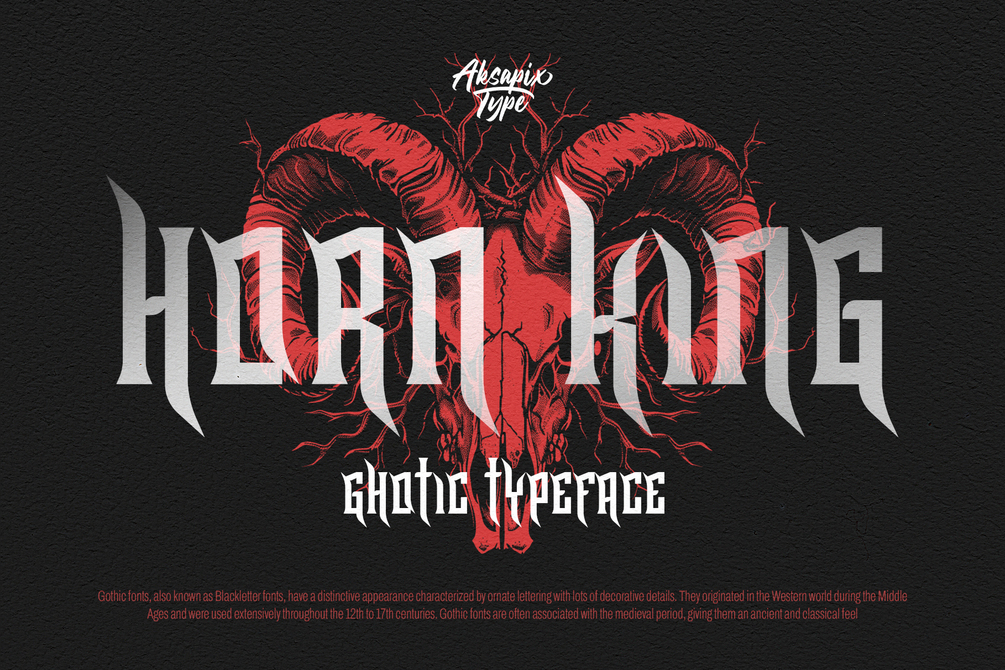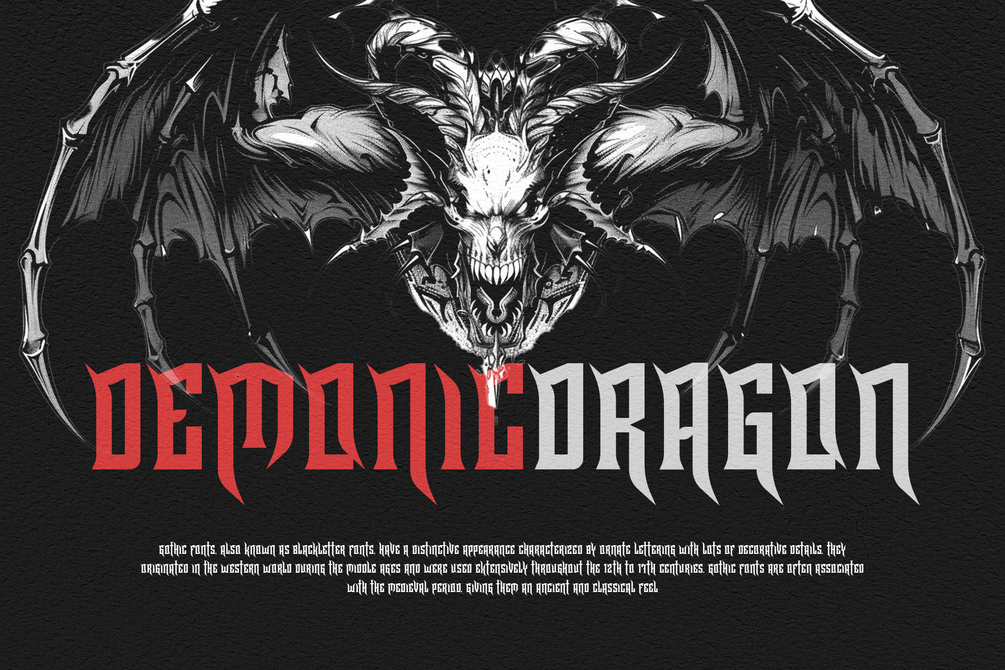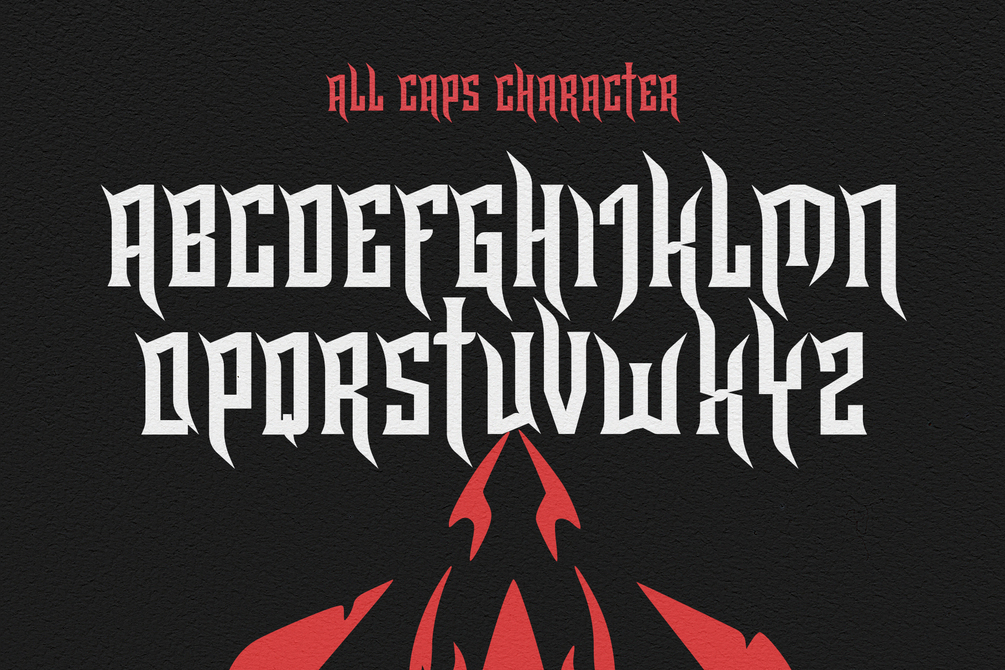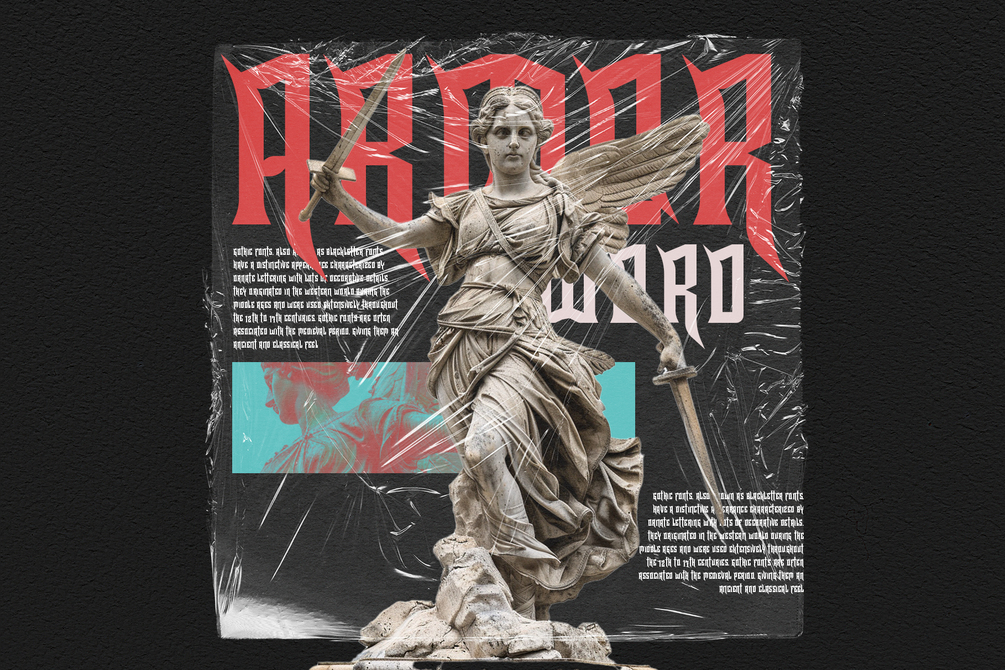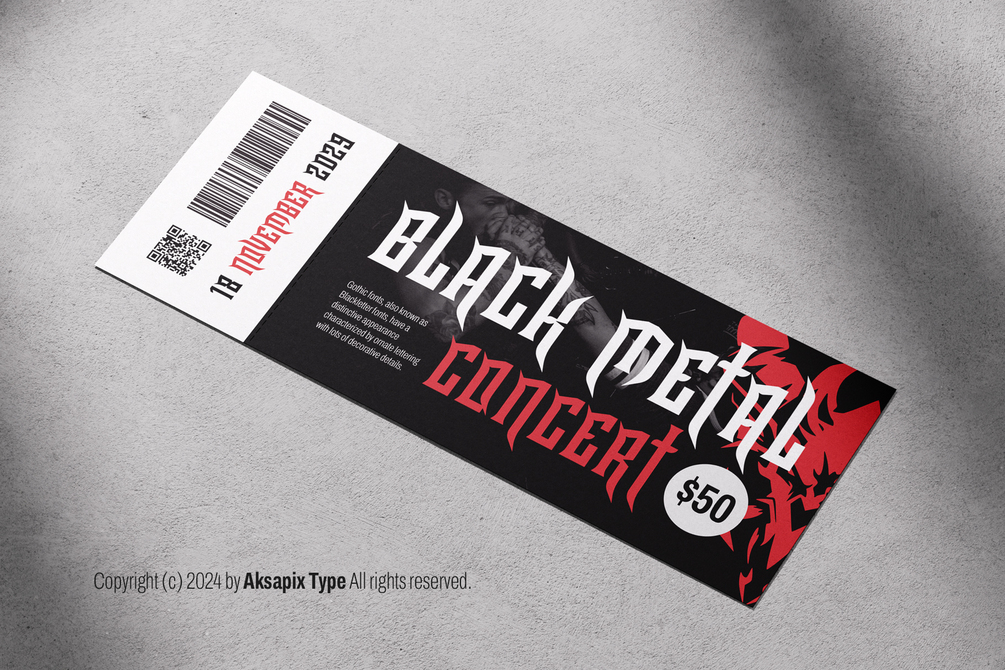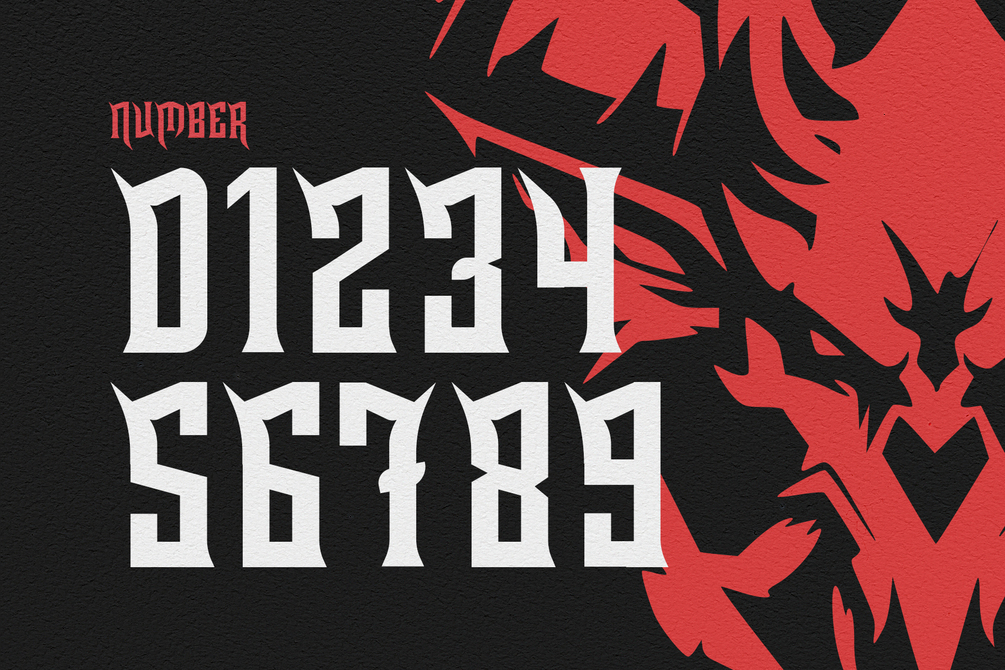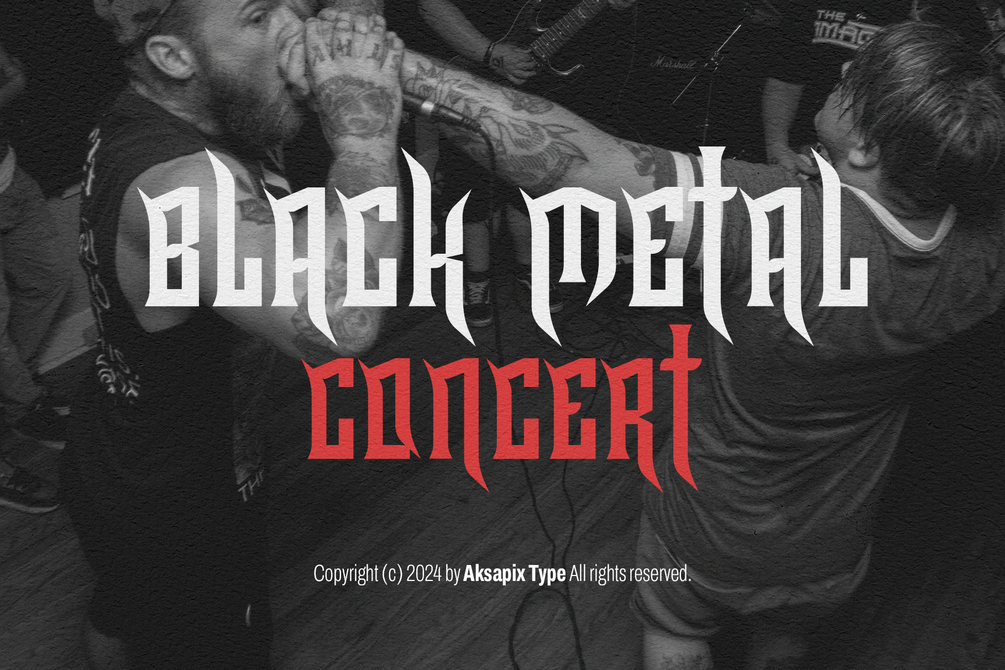
Horn King - Ghotic Typeface (FREE)
Aksapix Type
Introducing Horn King - Gothic Typeface, a commanding and bold font designed for impactful designs. This all-caps typeface exudes a sense of strength and authority, making it perfect for projects that require a gothic aesthetic. Horn King includes a complete set of uppercase letters, numbers, punctuation marks, and offers multilingual support for various languages.
Key Features:
- All Caps: Uppercase letters for a bold and authoritative look.
- Numbers and Punctuation: Complete set for all design needs.
- Multilingual Support: Ensures compatibility with different languages and locales.
- Gothic Aesthetic: Ideal for dark and dramatic designs.
Perfect For:
- Book Covers
- Metal Band Logos
- Gothic Art Prints
- Tattoo Designs
- Medieval Themes
Create bold and dramatic designs with Horn King - Gothic Typeface. Whether you’re designing striking book covers, fierce metal band logos, or intricate tattoo art, Horn King brings a gothic flair to your projects.